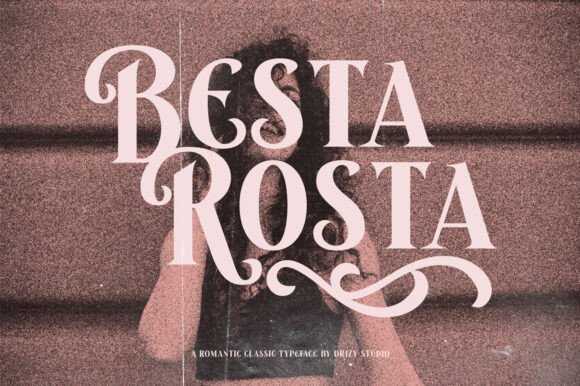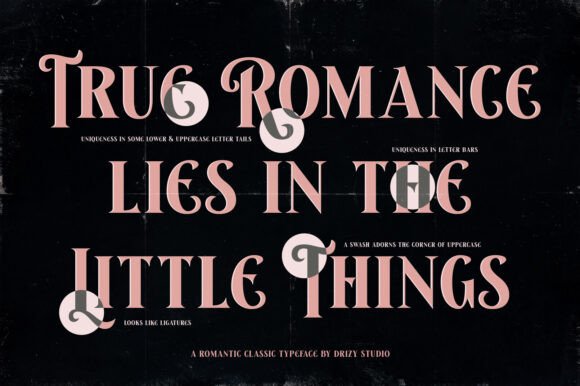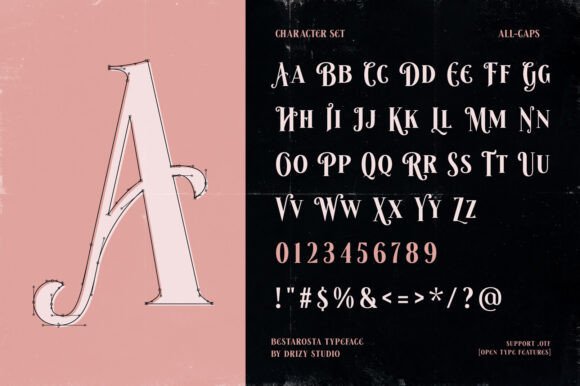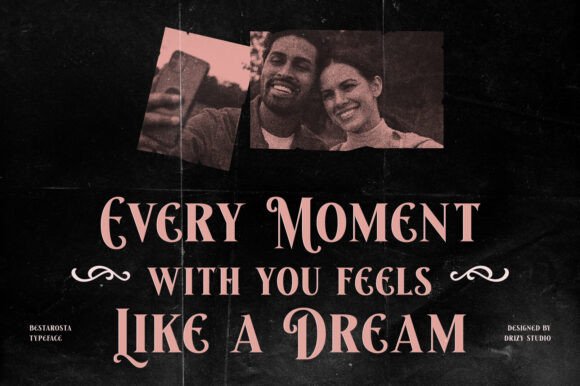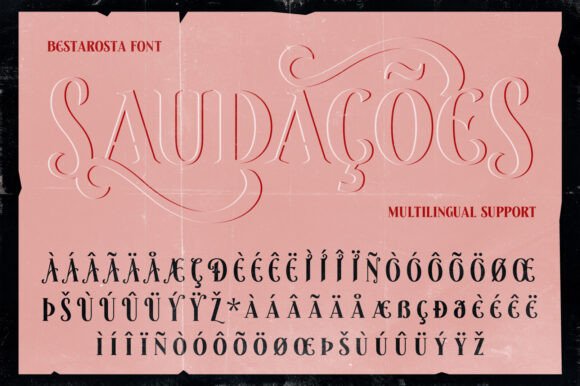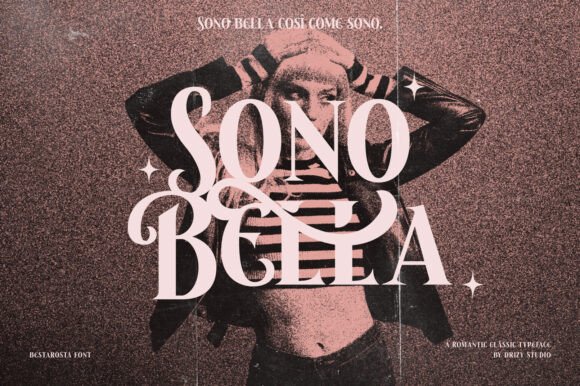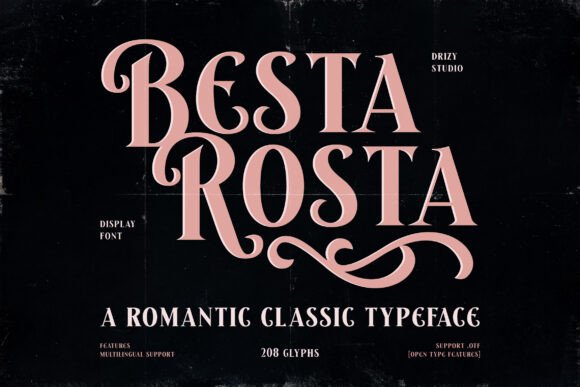
Discover the Timeless Elegance of Besta Rosta Font
Have you ever been in the middle of a design project, pouring your heart and soul into it, only to hit a roadblock when it comes to choosing the perfect font? I certainly have! It was during one of those moments, working on a romantic wedding invitation design, that I stumbled upon the Besta Rosta font from the Emo Romance collection. And let me tell you, it was love at first sight! 💕
A Perfect Blend of Classic and Romantic
Besta Rosta is a captivating font that perfectly blends classic serifs with soft, romantic curves, exuding charm and sophistication. This beautiful typeface is designed to add a touch of romance and nostalgia to every project, making it an ideal choice for creatives looking to express deep emotions with a classic yet modern twist.
What I Love About Besta Rosta ✨
• 💫 Timeless elegance: Besta Rosta has a classic, sophisticated feel that never goes out of style.
• ❤️ Romantic curves: The soft, flowing curves of this font make it perfect for designs that require a touch of romance.
• ✅ Versatile: Whether you’re designing wedding invitations, social media posts, or branding materials, Besta Rosta is a versatile font that adapts to any project.
• 🎨 Delicate details: The font’s delicate details and harmonious flow make it a joy to work with.
While Besta Rosta is an amazing font, there are a few things to keep in mind:
• 🤔 Limited use in very formal or corporate designs: Due to its romantic and elegant nature, Besta Rosta might not be the best fit for very formal or corporate designs.
• ⚠️ May not work well in small sizes: As with many script fonts, Besta Rosta may lose some of its charm when used in very small sizes.
A Practical Guide to Using Besta Rosta
The Story Behind Besta Rosta
Besta Rosta was designed with the intention of capturing the essence of romance and elegance. The designer aimed to create a font that would evoke feelings of love, warmth, and nostalgia, perfect for designs that require a touch of sophistication and emotional depth.
What makes Besta Rosta unique? Besta Rosta stands out due to its perfect blend of classic serifs and romantic curves, making it ideal for designs that require a touch of elegance and emotion.
Is Besta Rosta difficult to read? No, Besta Rosta is designed to be legible and easy to read, even at smaller sizes.
Can I use Besta Rosta on social media? Absolutely! Besta Rosta is perfect for social media posts, especially those that require a touch of romance and elegance.
In conclusion, Besta Rosta is a beautiful, captivating font that’s sure to add a touch of romance and sophistication to any design project. With its timeless elegance, delicate details, and harmonious flow, it’s an ideal choice for creatives looking to express deep emotions with a classic yet modern twist. Let Besta Rosta be the voice of your most cherished stories, where every letter speaks the language of love.